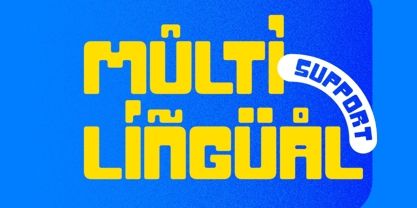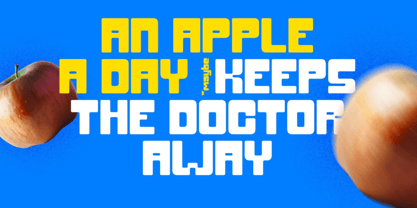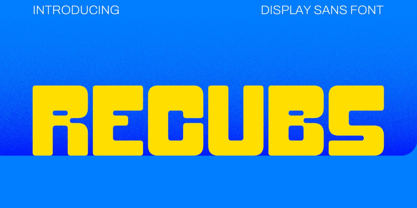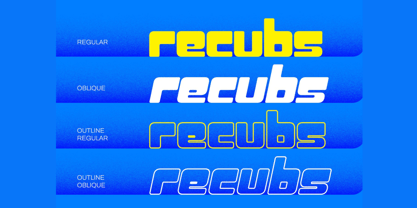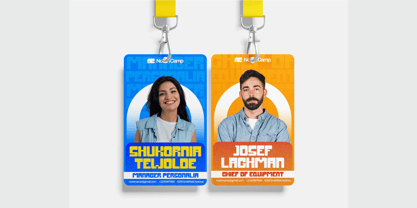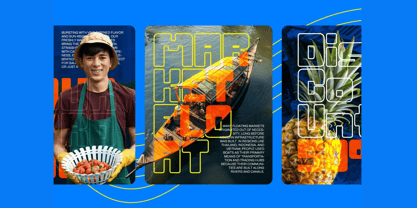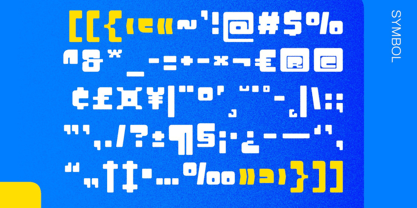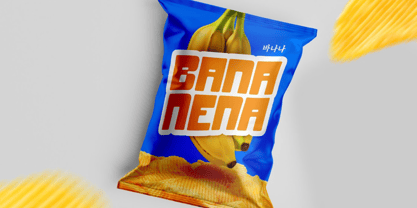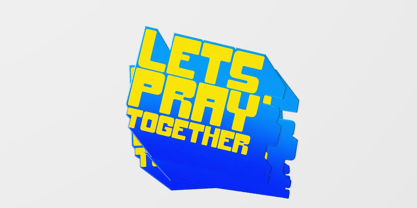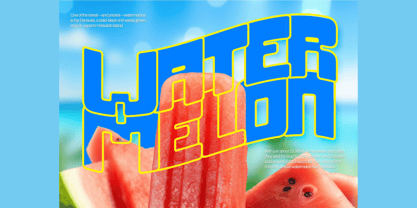
Rebulbs
Rebulbs is a dynamic geometric display font that strikes the perfect balance between precision and personality. Built with hard-edged structure and softened with approachable curves, this typeface offers a bold and modern look that’s both tech-forward and creatively inviting. Whether you're designing for digital platforms or high-impact print layouts, Rebulbs ensures optimal legibility with a distinctive, engaging presence.
The collection includes both solid and outline styles, making it incredibly versatile for any design context. From futuristic branding to layered editorial layouts, Rebulbs adds depth and innovation while maintaining clarity and consistency.
Key Features:
• 4 Font Styles Included – Regular, Oblique, Outline Regular, and Outline Oblique
• Clean Geometric Letterforms – Strong, modern design with softened edges for visual balance
• Full Character Set – Includes uppercase, lowercase, numerals, punctuation, and symbols
• Multilingual Support – Supports multiple Latin-based languages
• Screen & Print Friendly – Designed for readability across mediums
• Perfect Weight Contrast – Outline styles add dimension without overwhelming your design
Perfect For:
• Tech & Futuristic Branding
• Modern Editorial Design & Web Headers
• Posters, UI/UX Interfaces & Apps
• Layered Typography & Bold Statements
• Digital Art & Creative Advertisements
• Gaming Logos, Titles & Sci-Fi Aesthetics